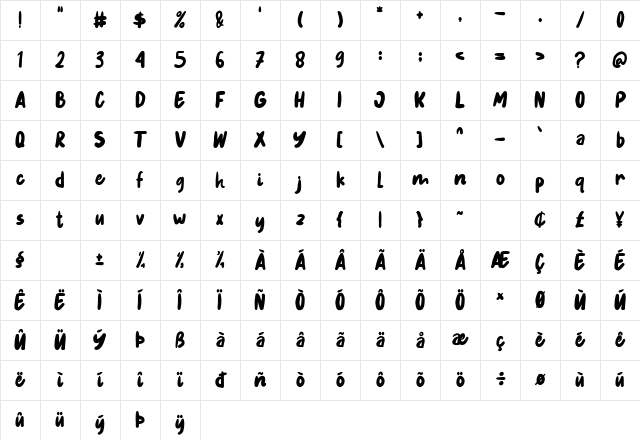
Rampung Regular Free Font
Rampung Regular
Designer: Wildan Suprian Syah
Design Context for Rampung
Rampung is a composed and adaptable typeface that performs quietly and consistently across a wide range of design contexts.